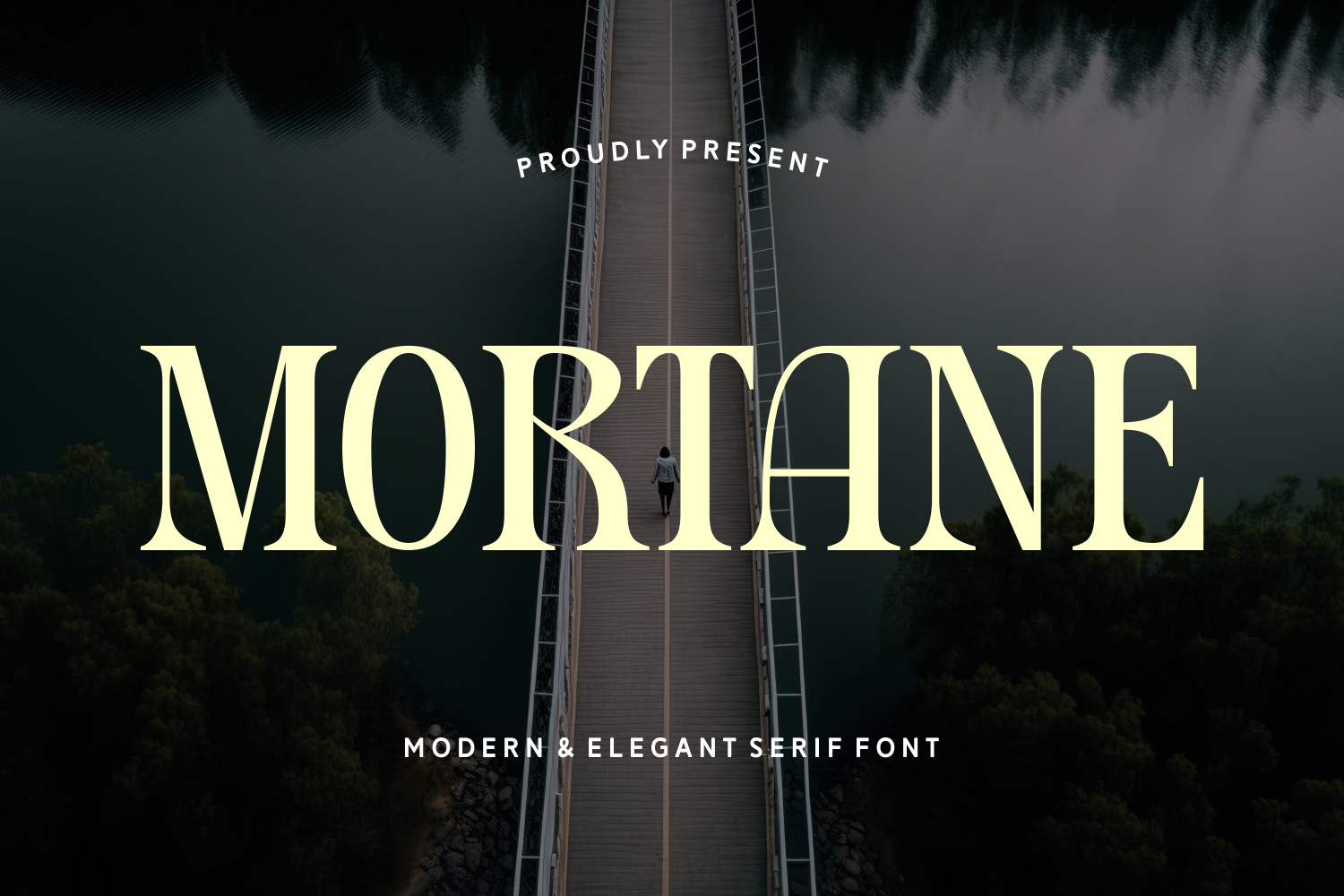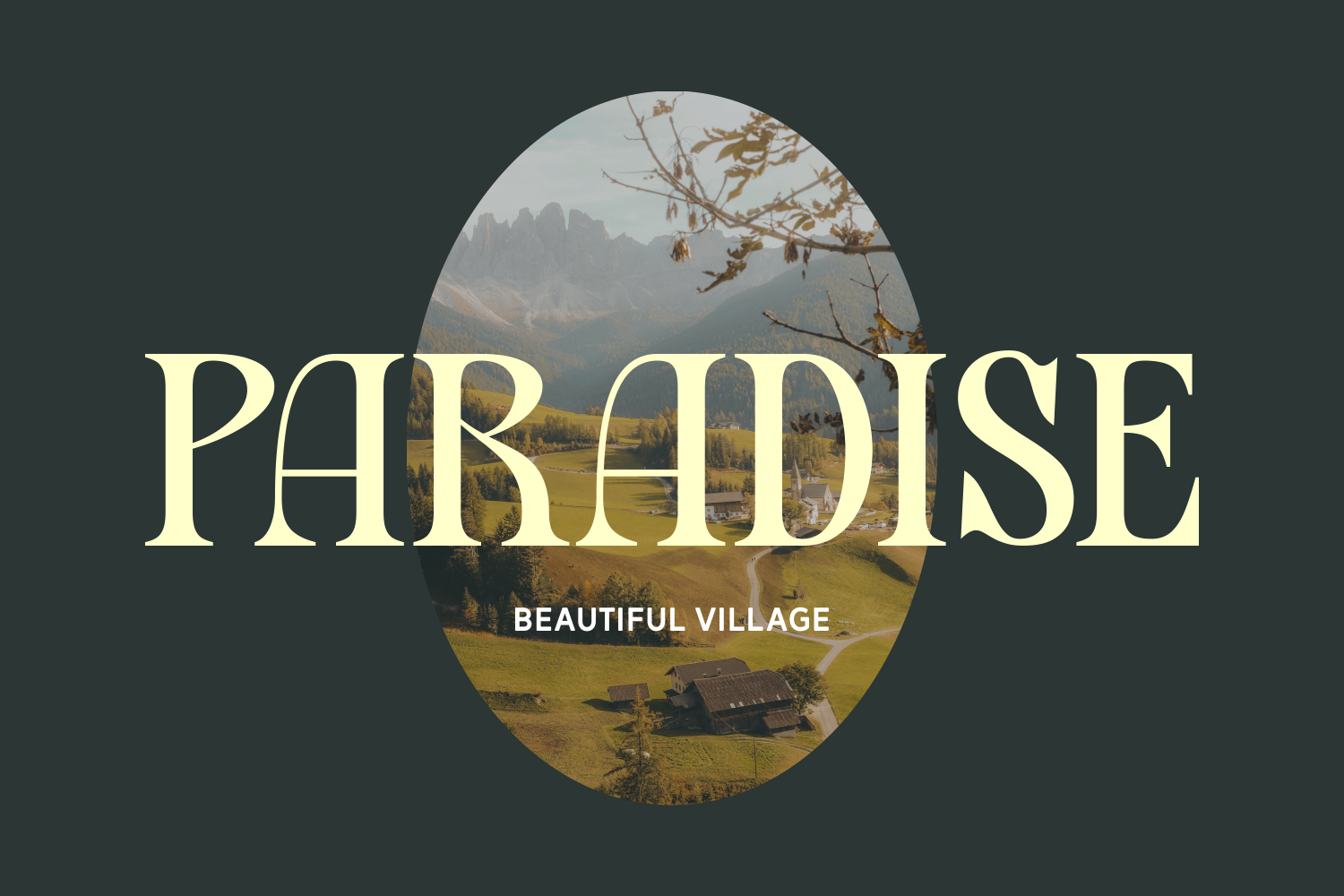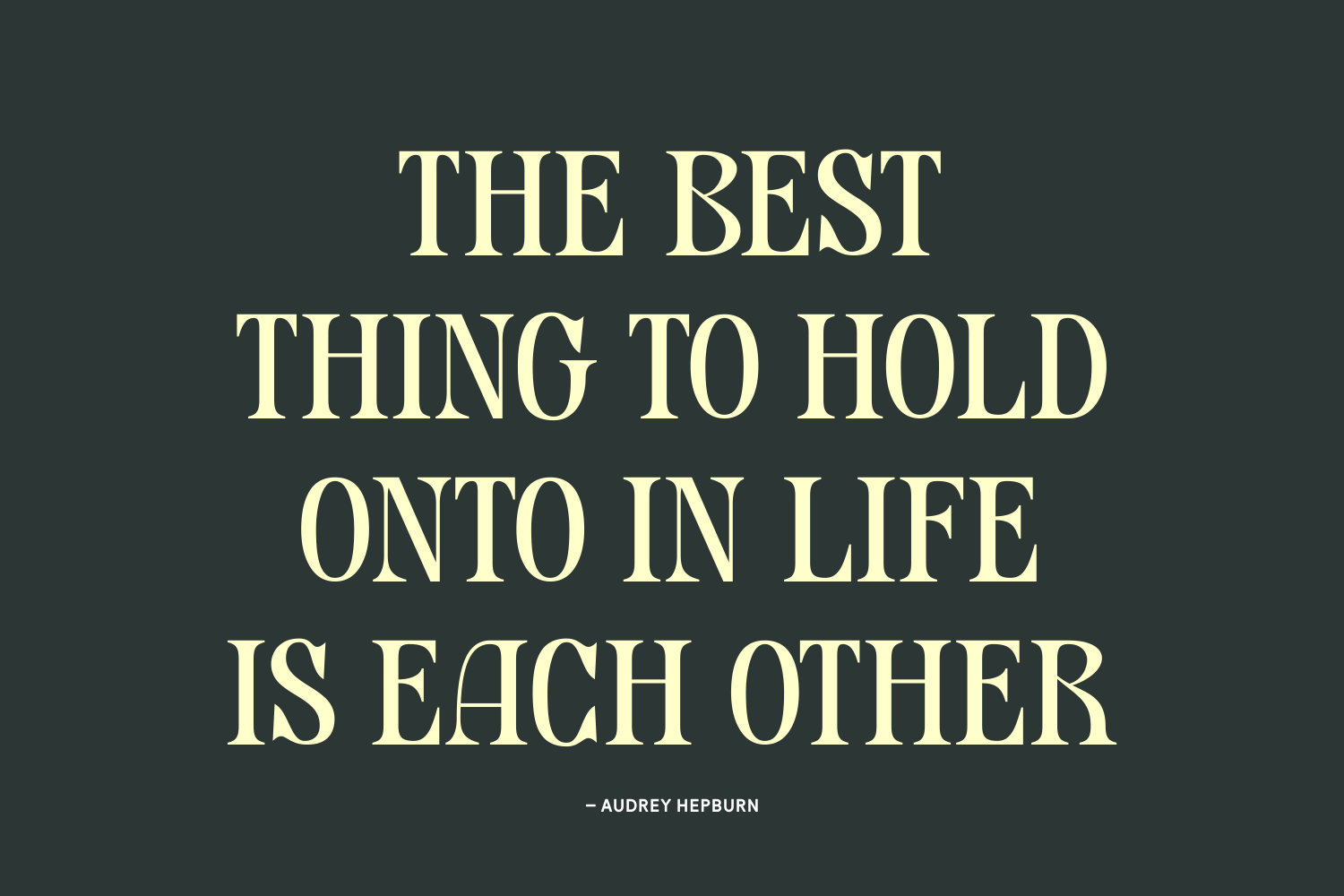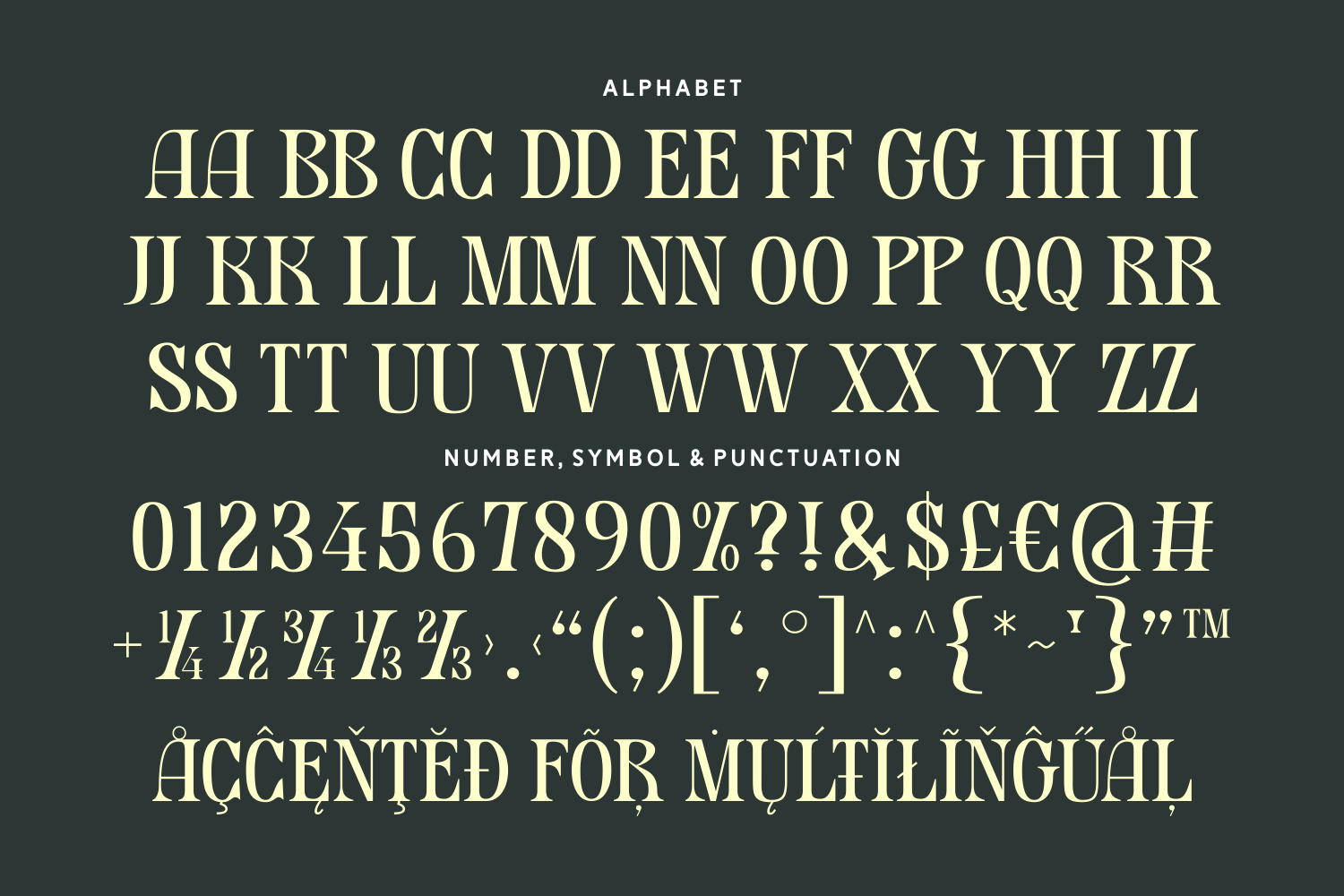
Mortane is a bold and elegant modern serif font with striking contrast and powerful presence. Mortane blends classic charm with modern sophistication, making every word feel intentional and upscale. With a timeless character and professional polish, it’s the perfect serif for bold creative voices.